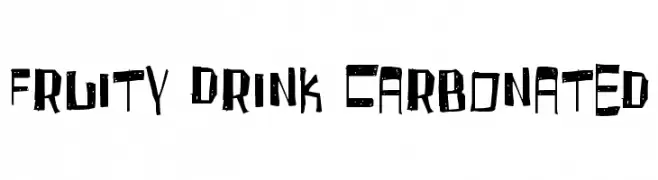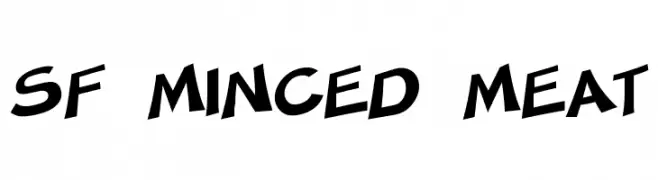
A playful, hand-drawn font with bold, irregular characters and a whimsical style.
A dynamic, handwritten-style font with fluid strokes and artistic flair.
A modern, geometric font with clean lines and bold uppercase letters.
A wide, elegant font with clean lines and modern style.
( Fonts by Paul Lloyd )
An embossed serif font with a three-dimensional, shadowed effect.
A bold, modern sans-serif font with geometric influences and excellent readability.
( Fonts by ShyFonts )
A bold, dynamic font with a playful, slanted style and uneven strokes.
A bold, geometric font with Art Deco influences, perfect for striking headlines and branding.